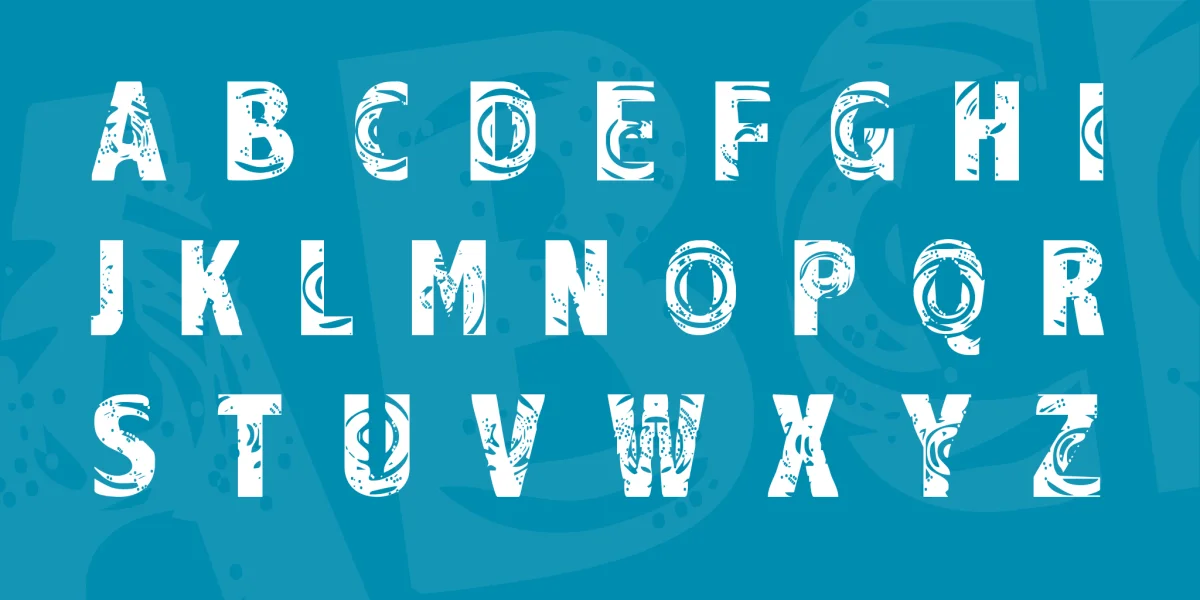
Second in a series of water-related fonts (the first being, Underwater Love), the idea with this was to make the letters look swirled, like the concentric circles you see when a raindrop splashes into a puddle...